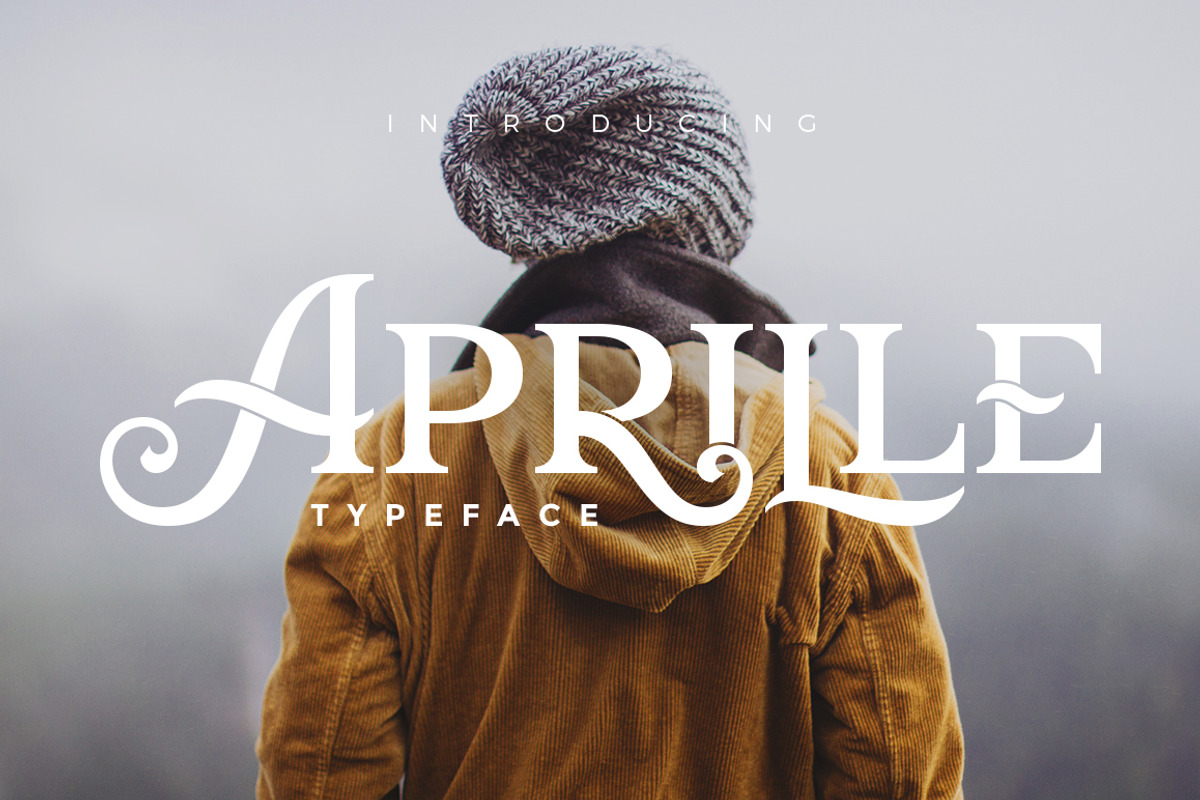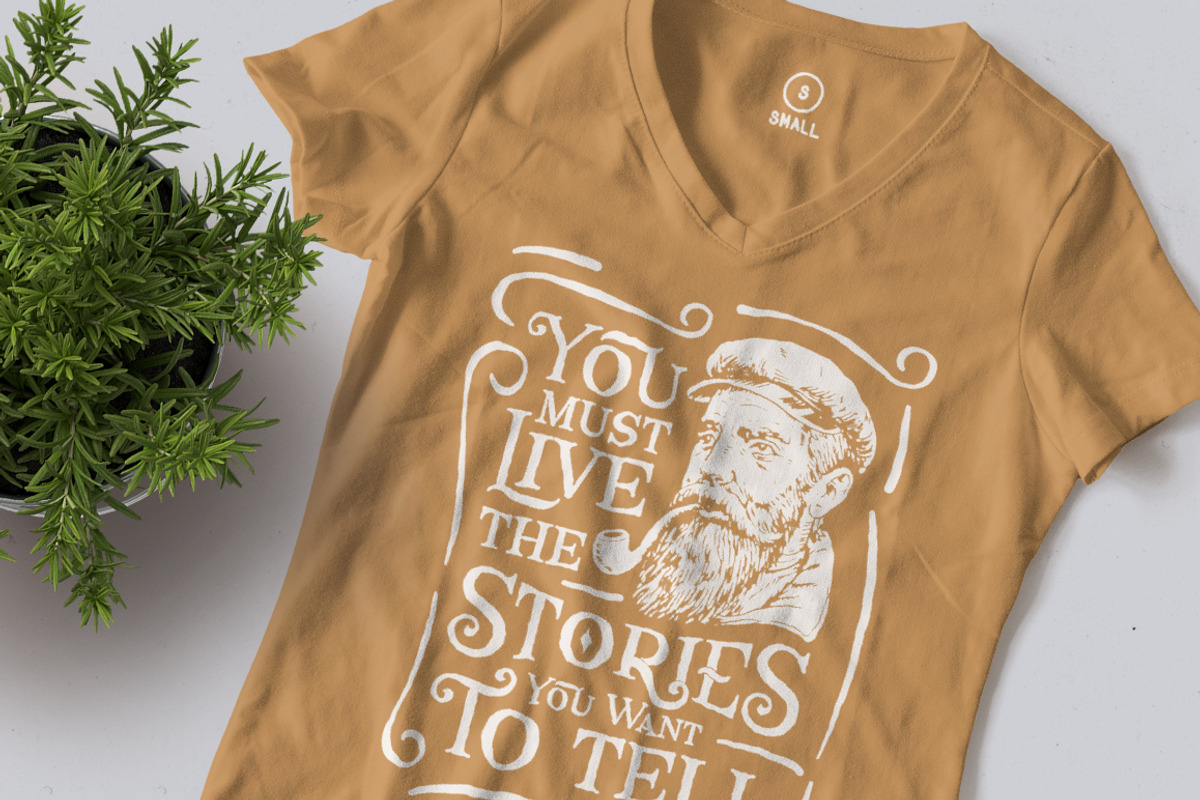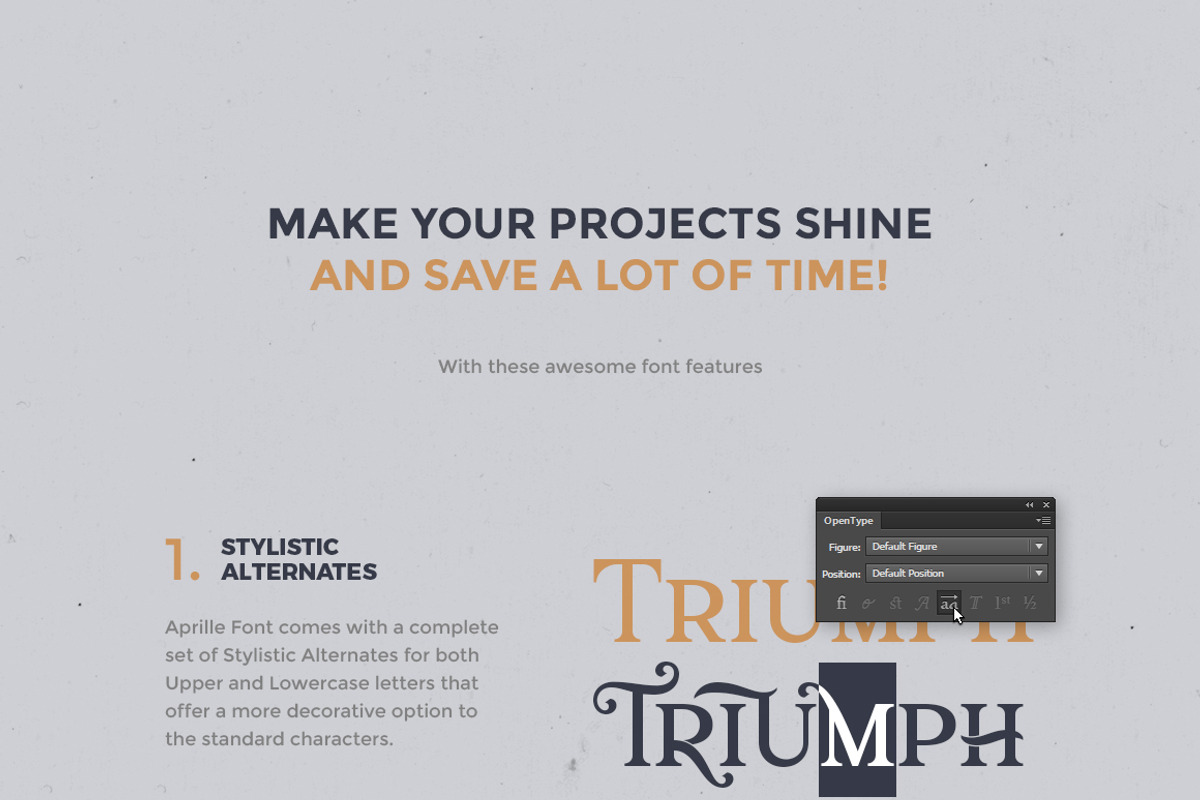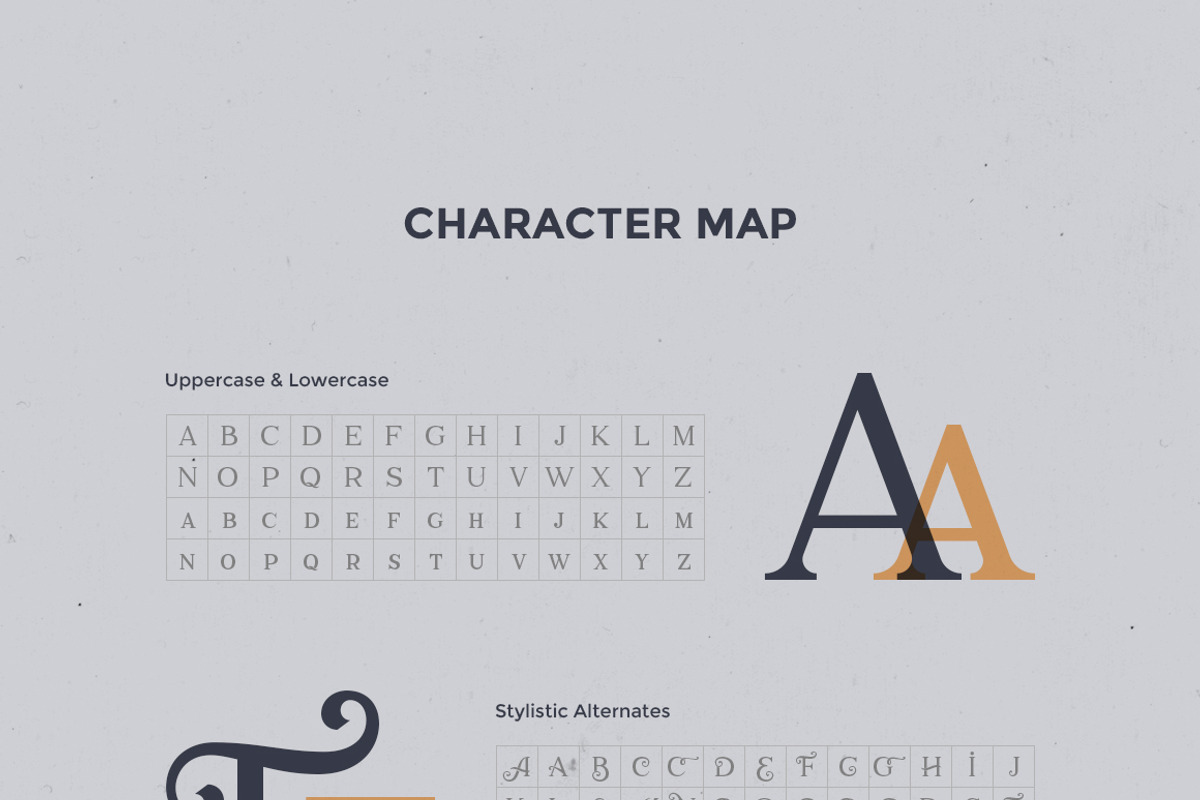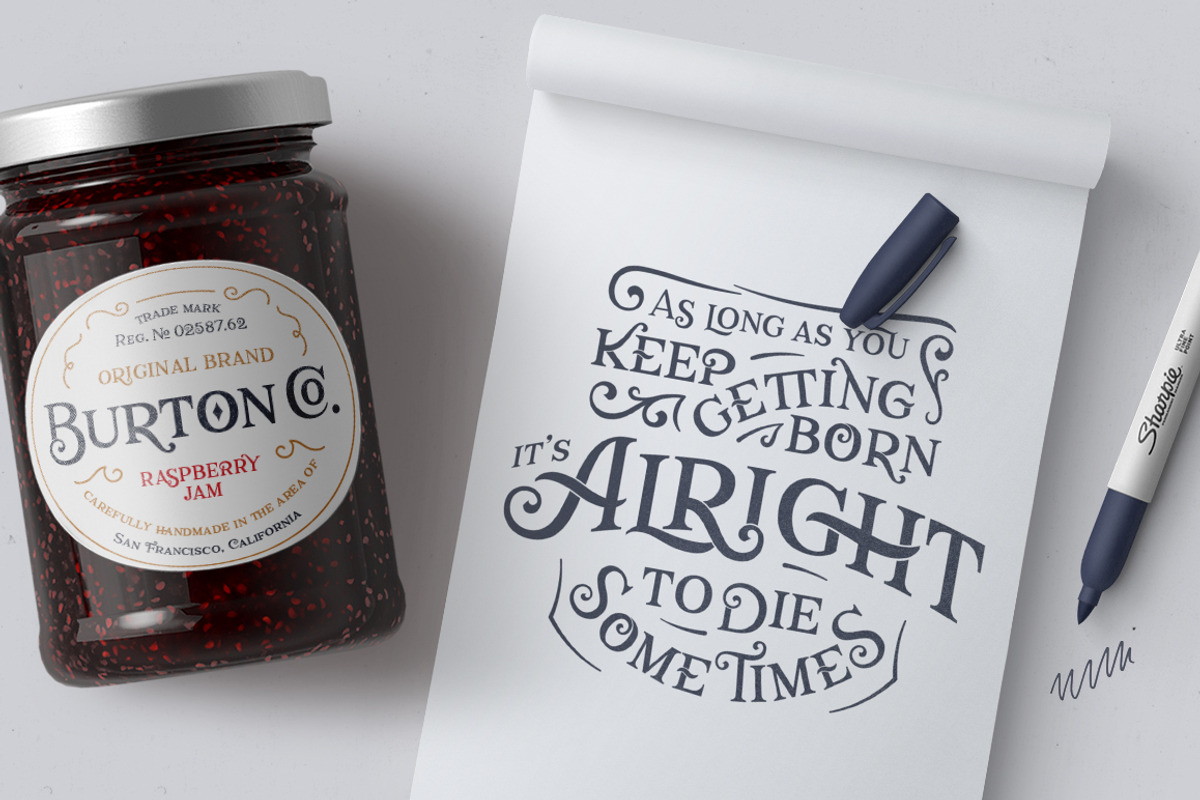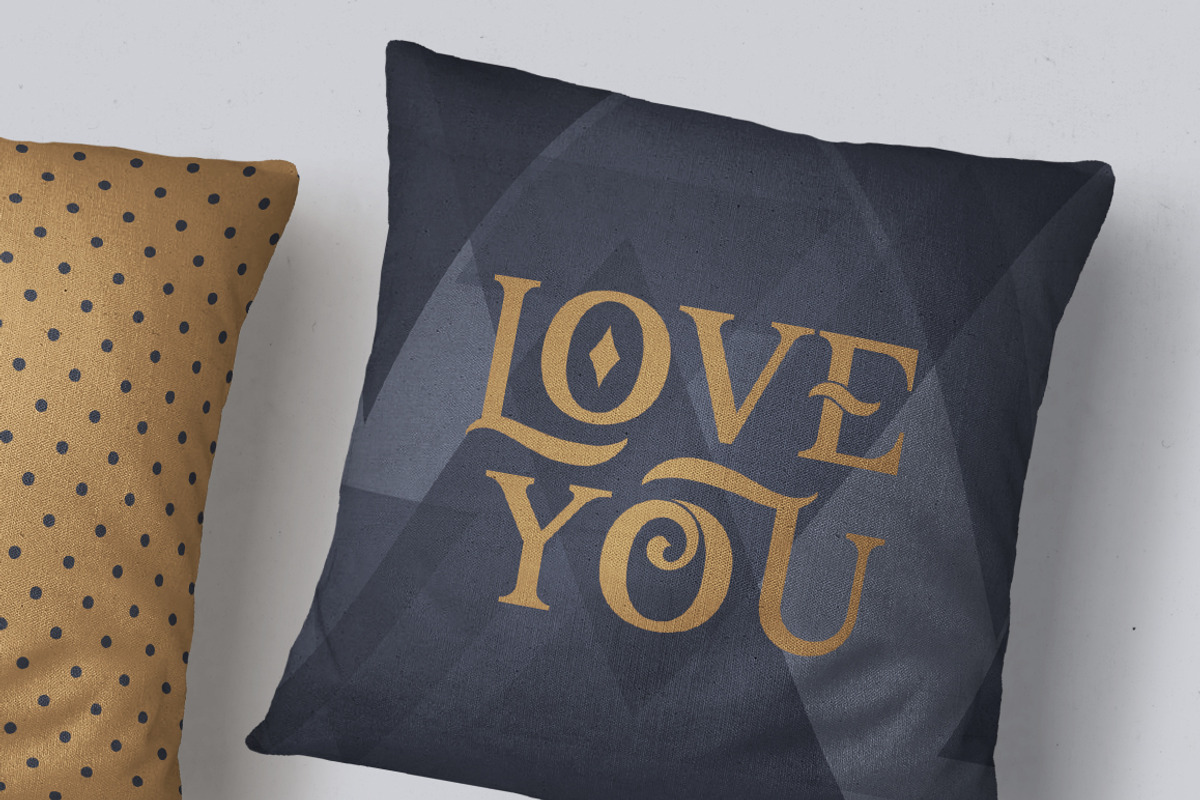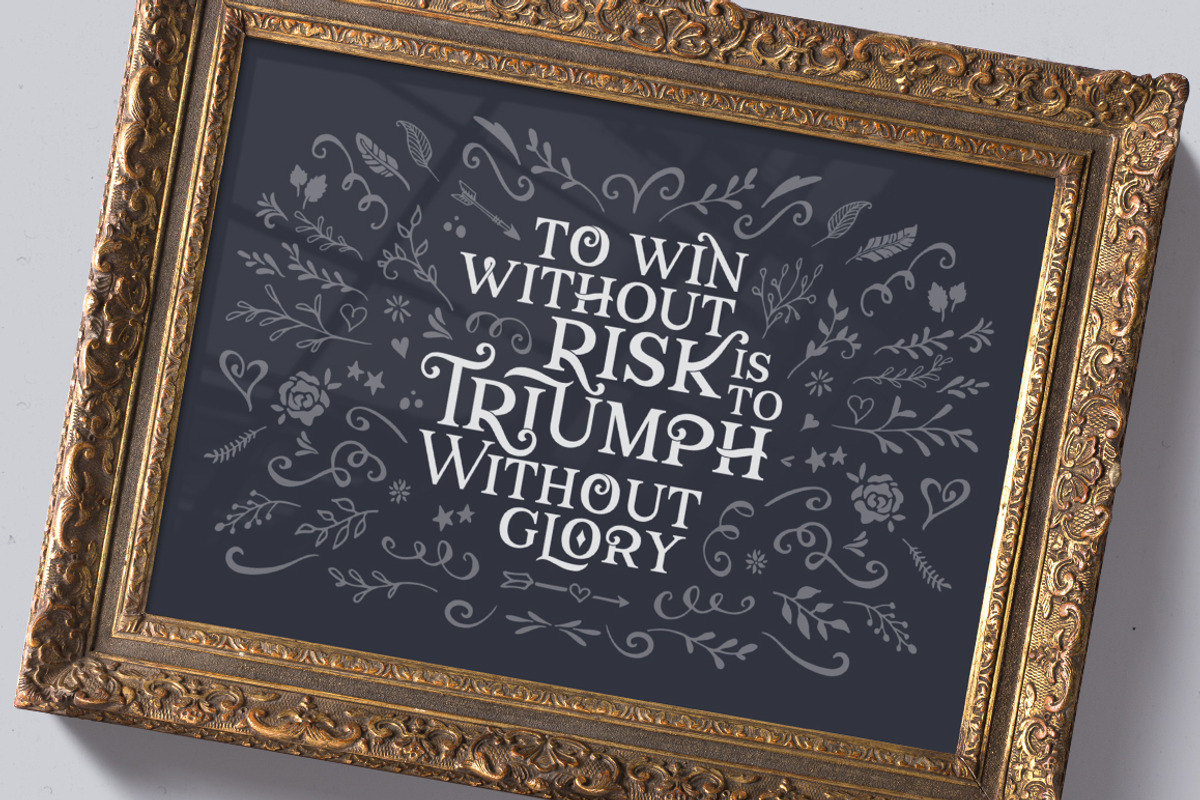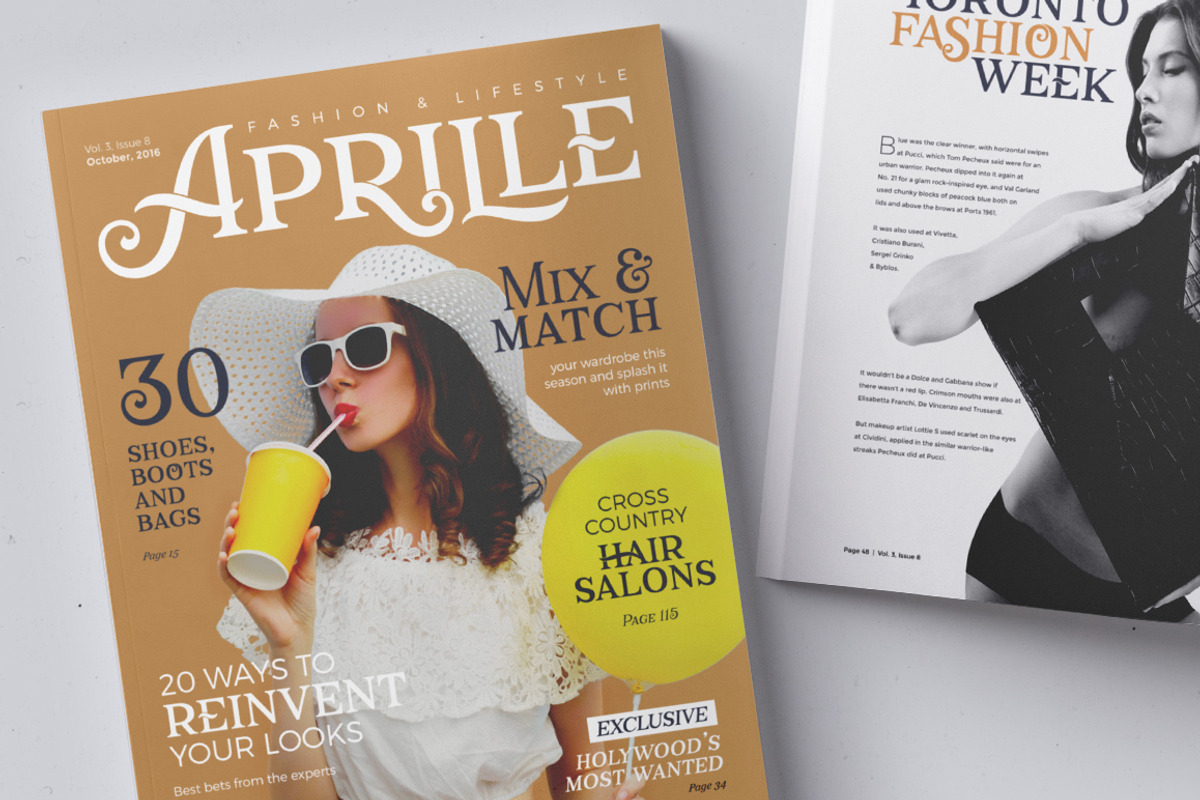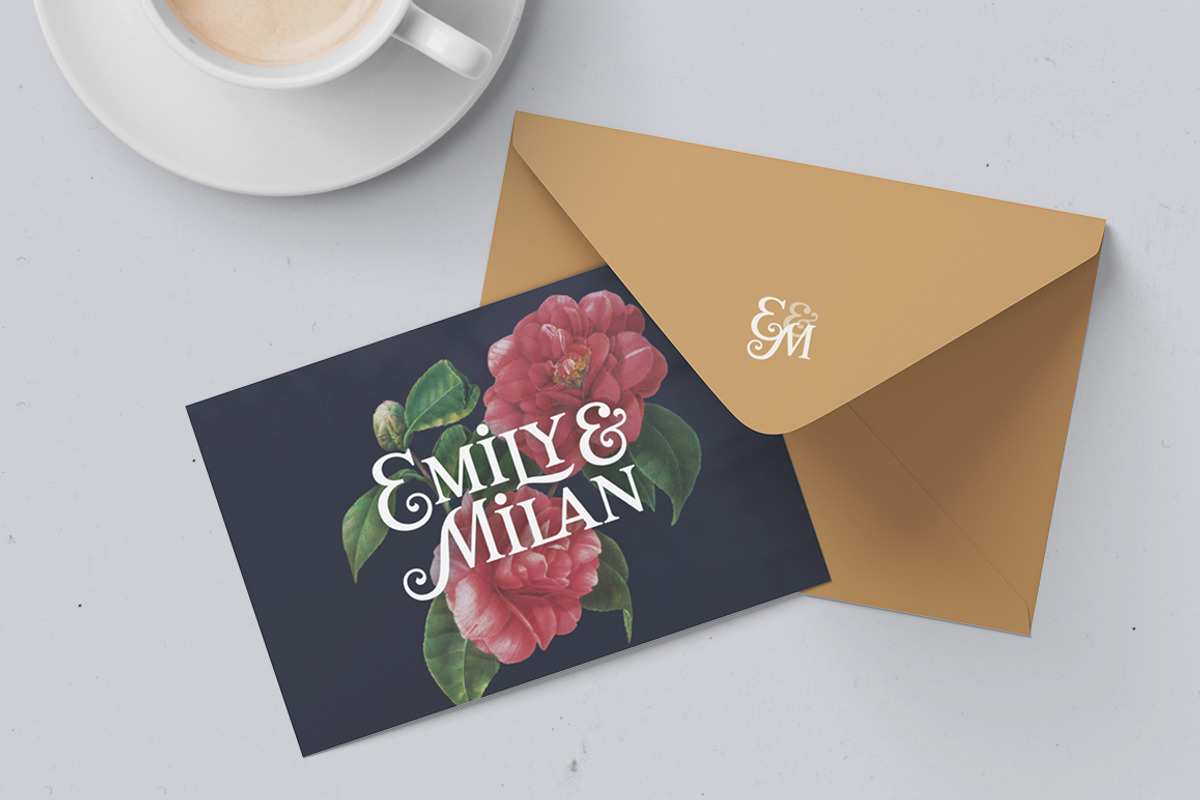
Aprille Typeface
Introducing a new display vintage font with tons of cool characters, symbols, and OpenType Features. Aprille Typeface is perfect for quotes, logos, apparel, advertising, wedding invitations and packaging design.
- All Caps & Small Caps font
- Symbols & Punctuation
- A total of 290 Glyphs
- OpenType Features
- + Bonus Characters
Aprille Typeface comes with a complete set of stylistic alternates for both Upper and Lowercase letters that offer a more decorative option to the standard characters.
To improve the look of characters that combine in an unattractive way, Aprille Typeface provides a wide variety of Discretionary and Standard Ligatures.
International Characters (Multilingual)
Aprille Typeface supports most Latin Script languages such as English, Spanish, French, German, Portuguese, Italian, Norwegian, Swedish, Irish, Turkish, etc.
Bonus Characters
To make your design even more awesome and add a vintage touch, grab and place one of the bonus characters included into the Aprille Typeface.